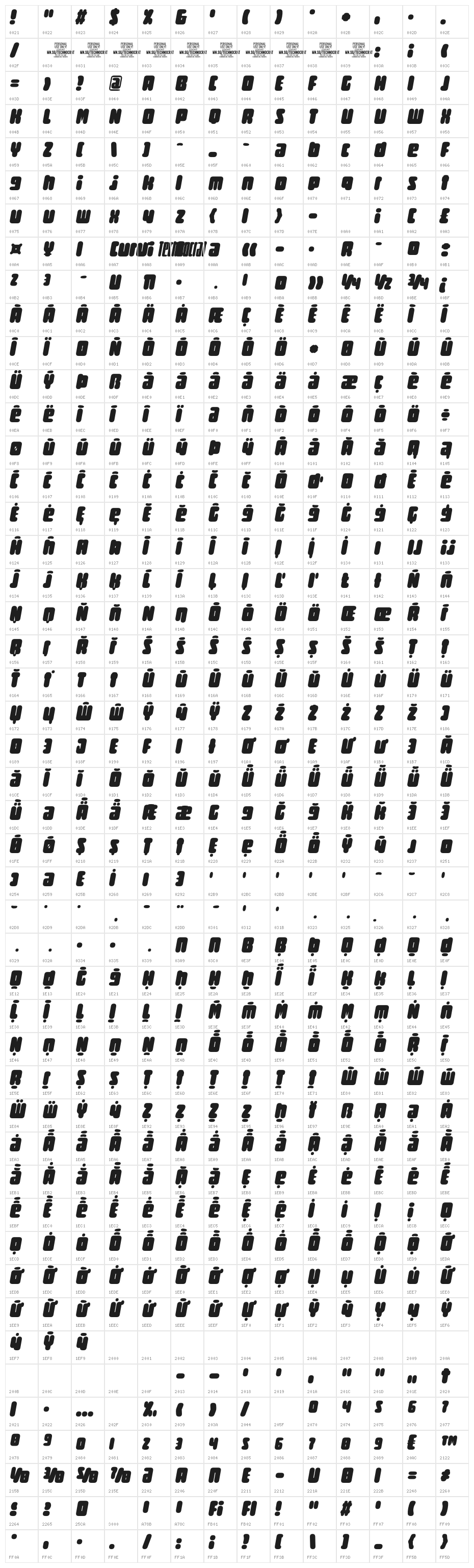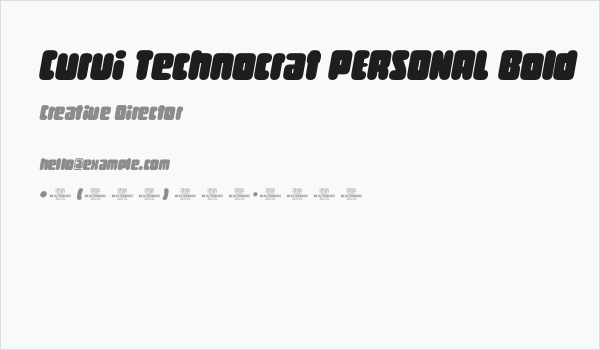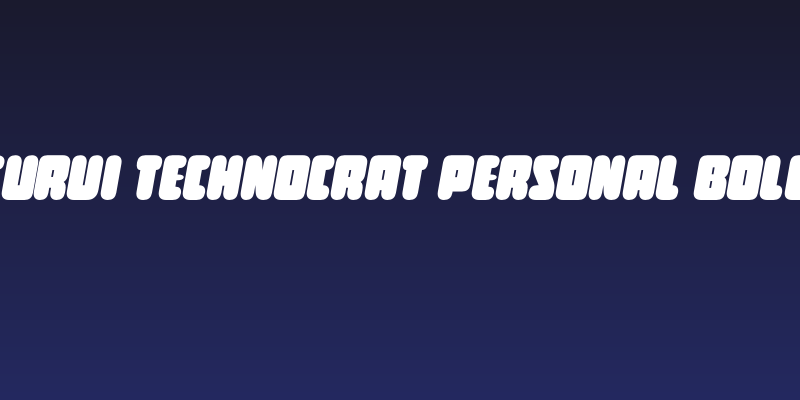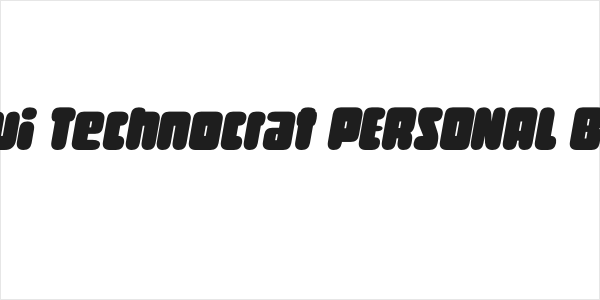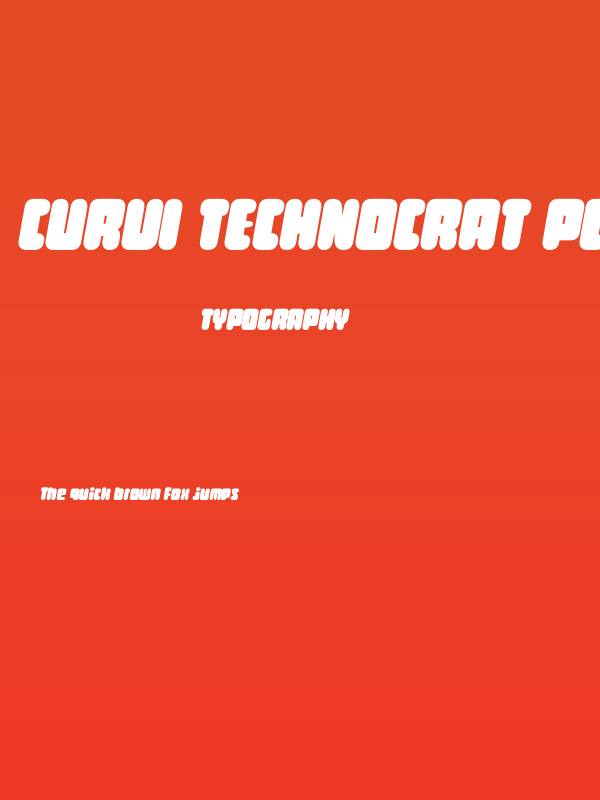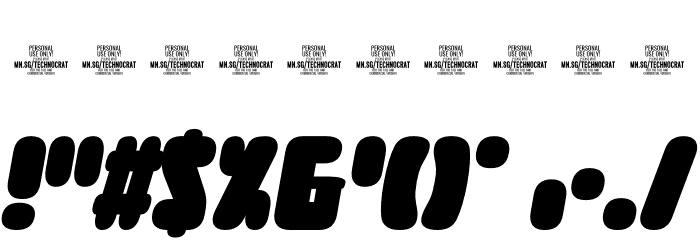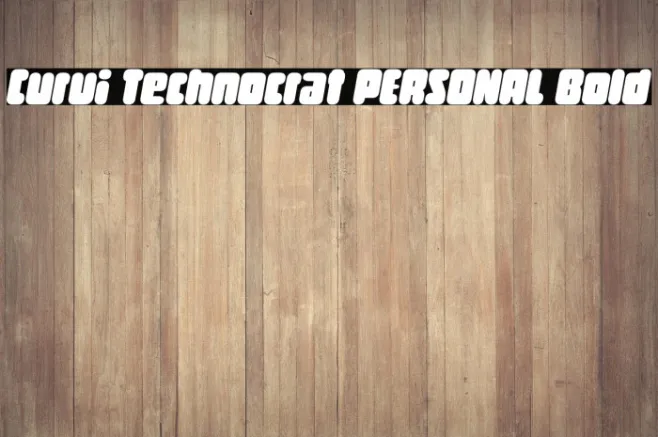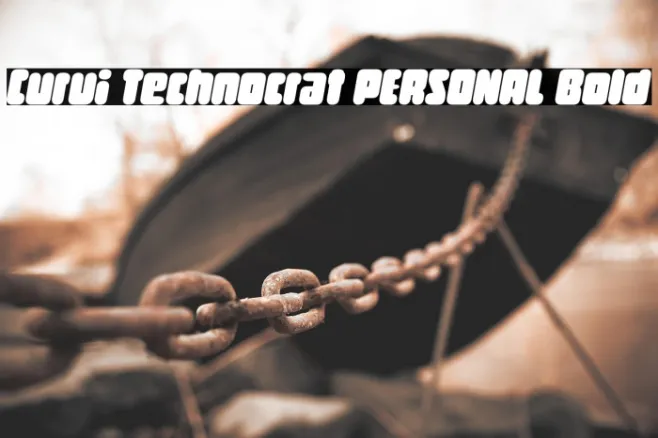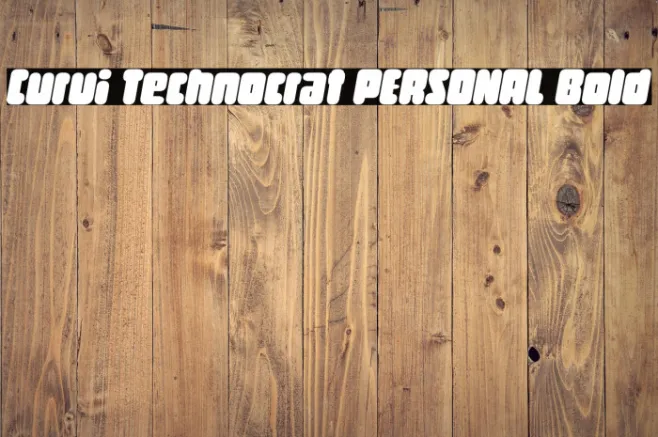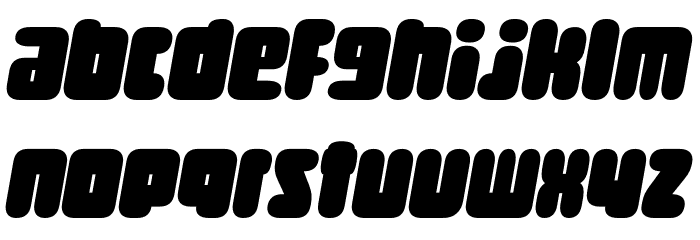
Curvi Technocrat PERSONAL Bold Font
Curvi Technocrat PERSONAL Bold Description
This font features a bold and rounded style with thick strokes and smooth curves, giving it a modern and playful appearance. The characters are uniformly bold, with a consistent weight that enhances readability while maintaining a unique aesthetic. The rounded edges and lack of sharp angles contribute to its friendly and approachable feel. The font is well-suited for attention-grabbing headlines and logos, where a strong visual impact is desired. Its boldness and rounded form make it stand out, while the uniformity in character design ensures a cohesive look across different text sizes.